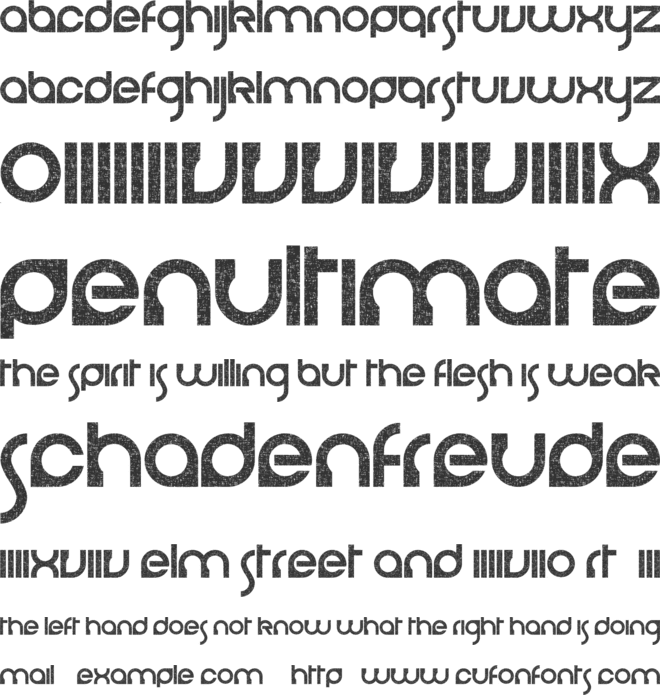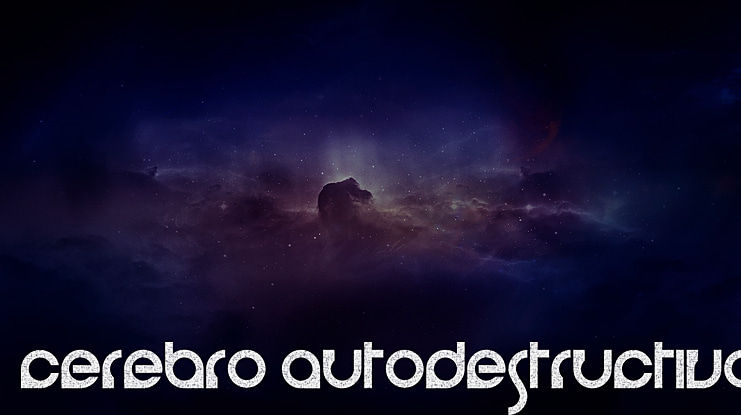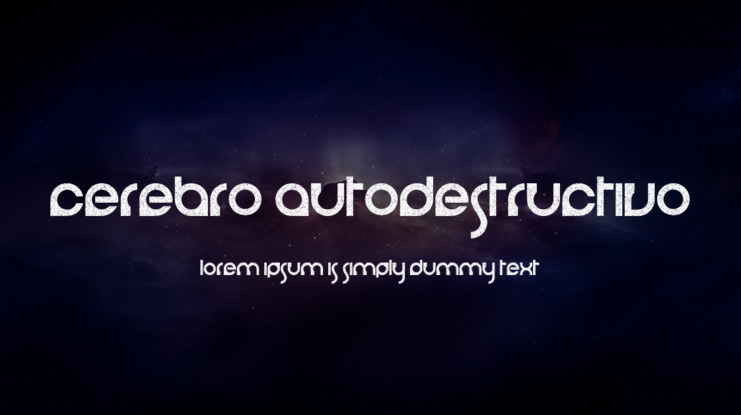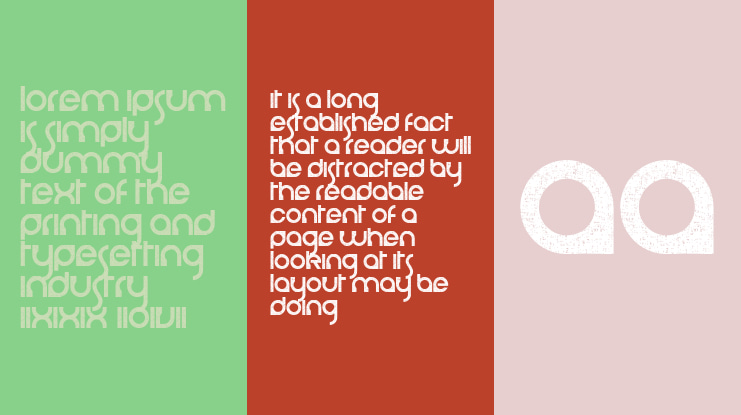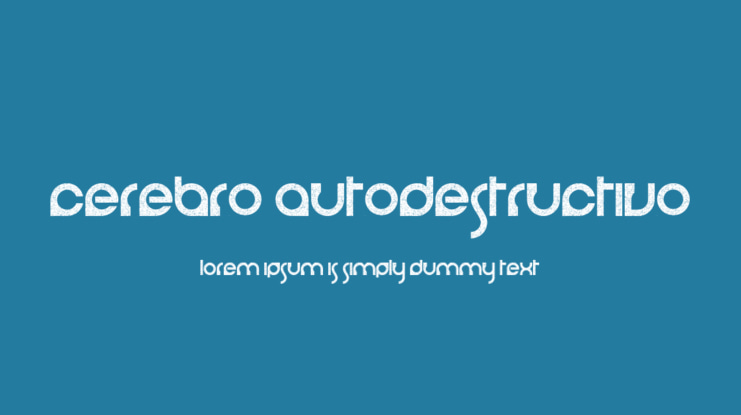
cerebro autodestructivo Font Family
This is a lower cased letter set that I've been playing with for awhile. It looks kinda Sci-Fi Techish and Fun!
This includes a Regular, Filled version of the font as well as a Grunge version.